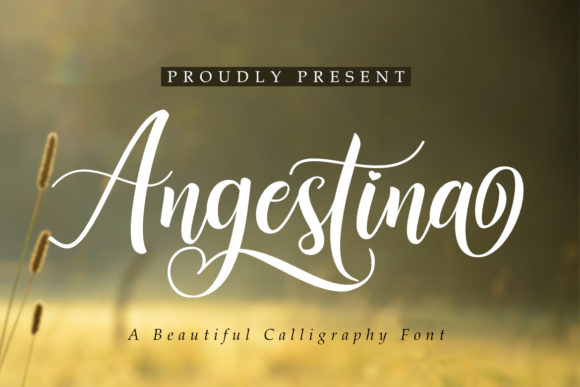
Introducing Angestina Font, the quintessential calligraphy script font family, meticulously designed by the artisans at Madatype Studio. Angestina Font is not just a font; it's a testament to the power of words, a stroke of brilliance that will leave you spellbound. Its delicate curves and graceful swashes will dance across your screen, weaving tales of romance, love, and adventure.
With Angestina Font, your words will come alive, speaking volumes beyond the ordinary. Its varying baseline and smooth lines create a sense of fluidity and movement, while its gorgeous characters and stunning alternatives add a touch of whimsy and charm. Whether you're a calligrapher, a designer, or simply someone who appreciates the beauty of words, Angestina Font is the perfect addition to your creative arsenal.
The Angestina Font knows no bounds when it comes to creative expression. It seamlessly adapts to a myriad of designs, adding a touch of handwritten charm to every project. Whether you're crafting a logo, designing a business card, or simply seeking to add a personal touch to your latest creation, Angestina Font is the perfect choice.